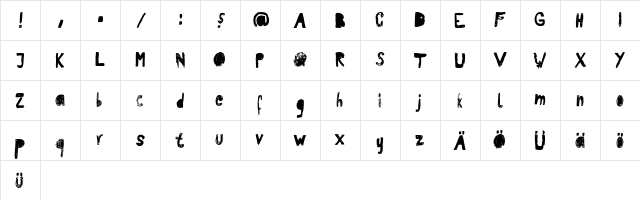
RvD_PATTERSON Regular
| Foundry | Rich.vom.Dorf. |
| Designer | Rich.vom.Dorf. |
Design Context for RvD_PATTERSON Typeface
RvD_PATTERSON is a composed and adaptable typeface that performs quietly and consistently across a wide range of design contexts.